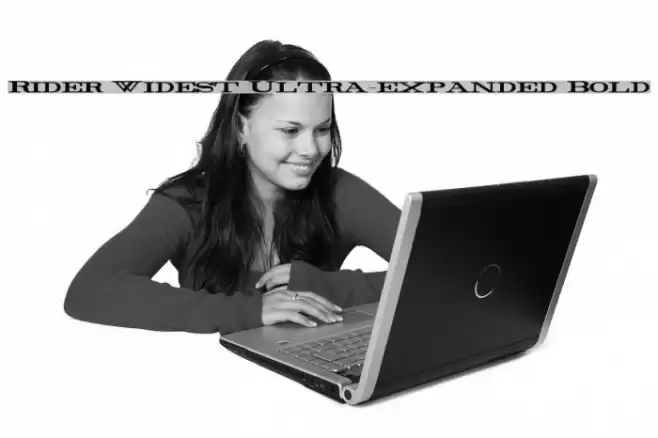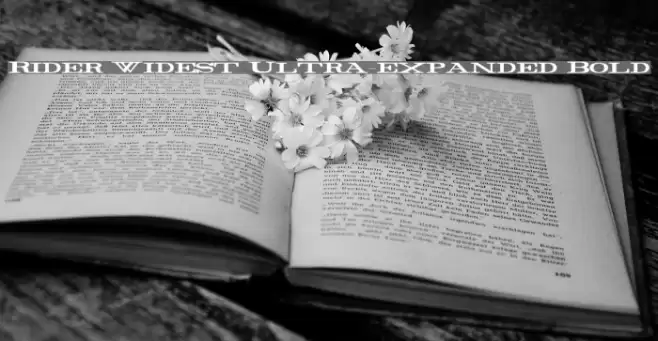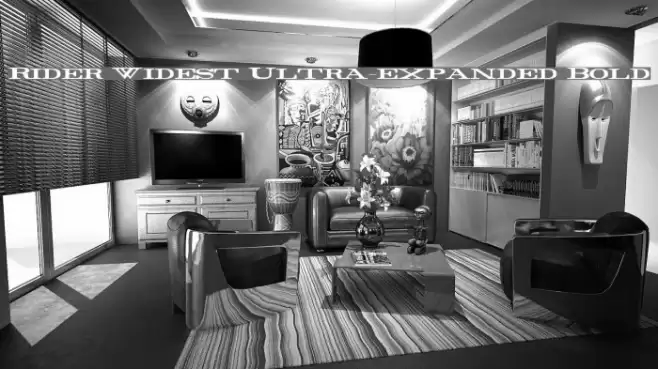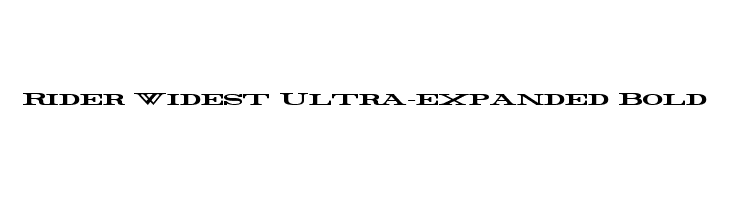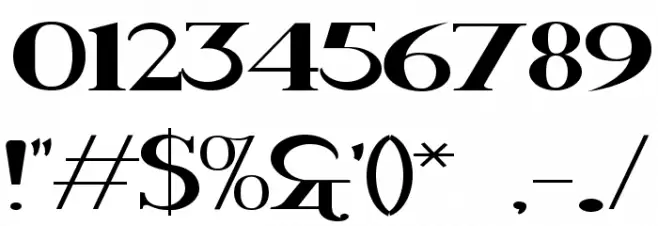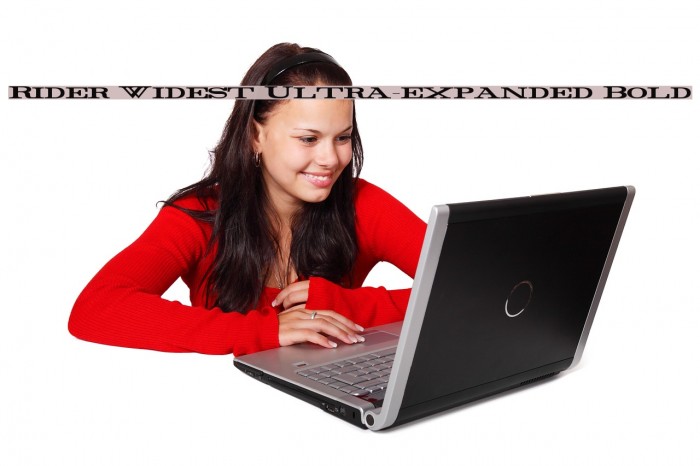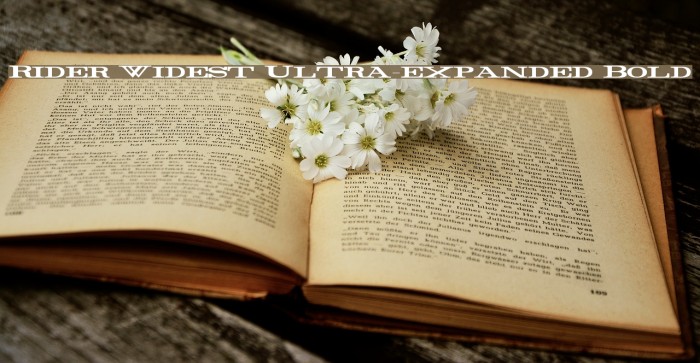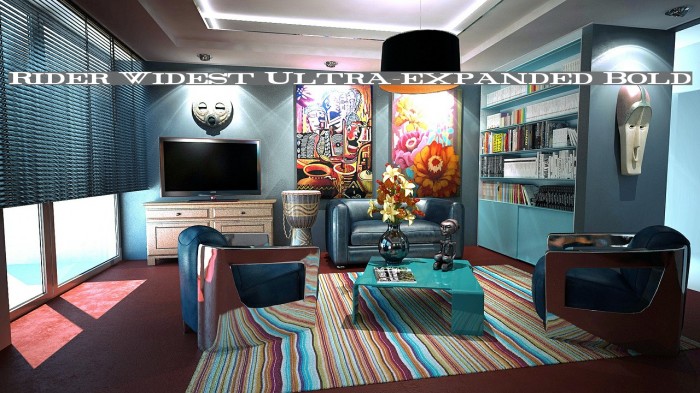
Rider Widest Ultra-expanded Bold Font
Rider Widest Ultra-expanded Bold Description
This font features a bold and ultra-expanded style, characterized by its wide letterforms and strong presence. The uppercase letters are particularly striking, with a distinct serif that adds a touch of elegance and sophistication. The numerals are equally bold, maintaining the wide stance that defines the overall aesthetic. Special characters are designed with the same attention to detail, ensuring consistency across all glyphs. This font is ideal for making a statement, with its high contrast and dramatic appearance.
A bold, ultra-expanded serif font with wide letterforms and high contrast from Uncategorized fonts.
- Proposed Projects: Ideal for branding, headlines, posters, and any design project that requires a strong, impactful typeface.